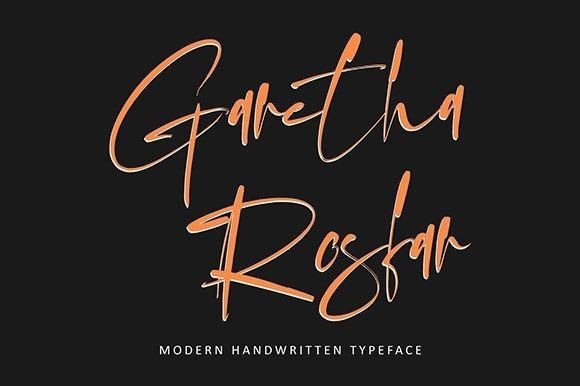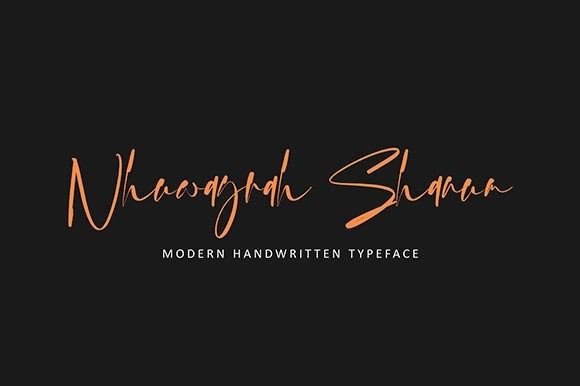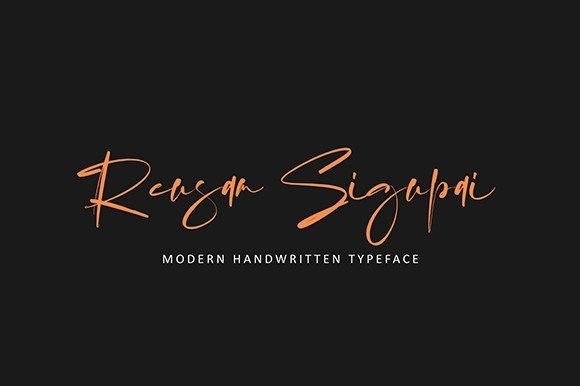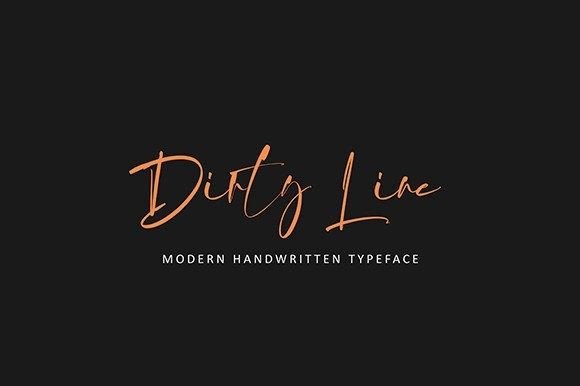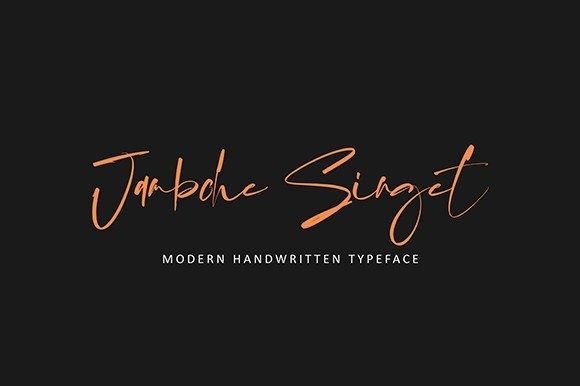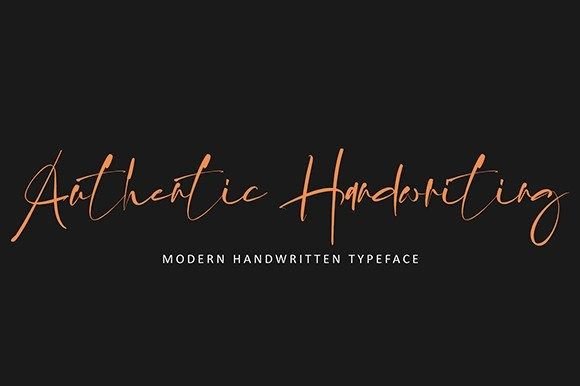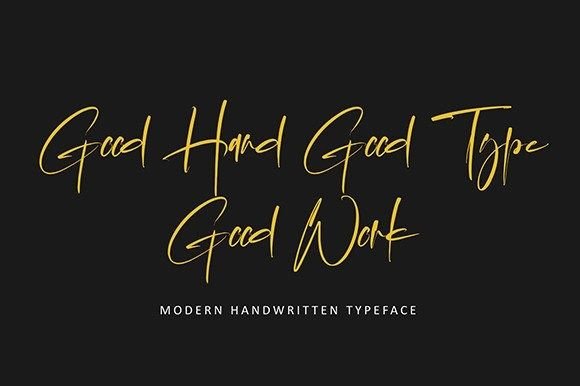
Unlock the Power of Handwritten Charm
Have you ever stared at a blank piece of paper, marker in hand, trying to come up with the perfect phrase to express your feelings? For many of us, the blank page can be daunting, but what if you had the perfect tool to bring your ideas to life? That’s where Garetha Rosfar Font comes in – a beautiful, handwritten brush script font that captures the essence of a marker-written note.
| 👤 Author | Pineungtype & Missinklab |
Designed for greeting cards, invitations, and motivational quotes, this font is perfect for anyone looking to add a personal touch to their designs. With its PUA encoding, accessing all the amazing glyphs and ligatures is a breeze, giving you endless possibilities to express your creativity. Whether you’re a seasoned designer or just starting out, Garetha Rosfar Font is a valuable addition to your toolkit, helping you to convey your message with warmth and personality.
Garetha Rosfar Font Key Features
- Font Family: Garetha Rosfar
- Unique Characteristic: Garetha Rosfar is a high-resolution, hand-drawn font with intricate details and subtle texture, making it ideal for creating elegant and sophisticated designs.
Garetha Rosfar Font Review
Garetha Rosfar Font is an elegant and sophisticated font that exudes luxury and refinement. It’s perfect for creating a high-end look for branding, advertising, or any design project that requires a touch of sophistication.
- Elegant and refined aesthetic that’s perfect for high-end designs
- Lots of weight options to choose from, making it versatile for different design needs
- Clean and modern lines that add a touch of sophistication to any design
- The font may not be as readable in smaller sizes or low-resolution designs
- Limited language support, which may limit its use for multilingual designs
- The font’s elegance may come across as too formal or stuffy in some designs
Overall, Garetha Rosfar Font is a solid choice for designers who want to add a touch of luxury to their designs. However, it may not be the best fit for every project. With careful selection and usage, this font can elevate any design to the next level.
To get the most out of the Garetha Rosfar font, try:
- Pairing it with a clean and minimalist design aesthetic.
- Using it for headings and titles to add a touch of sophistication.
- Experimenting with different font sizes and styles to create visual interest.
The Garetha Rosfar font is perfect for:
- Designing luxury brands and products.
- Creating high-end marketing materials.
- Adding a